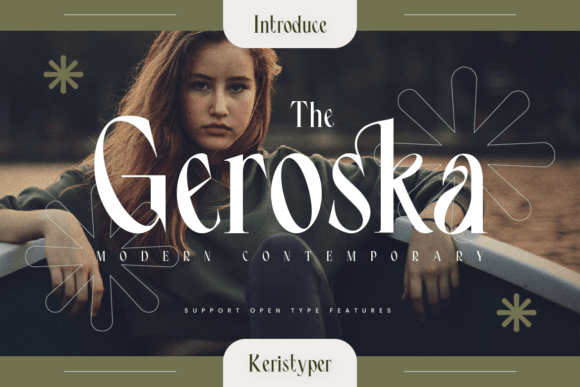
Unleash the Power of Expression with Geroska: The Serif Font That Speaks Volumes
In a world saturated with visual noise, your words have the power to cut through the clutter and leave a lasting impression. Geroska, a striking serif font, is your secret weapon to crafting designs that resonate with your audience.
Inspired by the timeless elegance of Mid-Century, Modern, and Aesthetics styles, Geroska is a font that commands attention without overpowering your message. Its refined curves and sharp serifs exude sophistication, inviting readers to engage with your content.
Whether you're crafting a captivating logo, creating eye-catching social media graphics, or designing movie or book titles, Geroska is your go-to choice for creating designs that leave a lasting impact.
Dive into the World of Geroska and Discover:
- A Serif Font Steeped in History: Geroska draws inspiration from classic serif fonts, reimagined for the modern age. Its timeless design ensures your creations stand the test of time.
- Versatility Like No Other: From short, impactful texts to lengthy, immersive reads, Geroska adapts seamlessly to your design needs. Its readability and clarity shine through, ensuring your message reaches your audience loud and clear.
- The Perfect Complement: Geroska plays beautifully with sans serif and script fonts, creating harmonious designs that captivate and inspire. Experiment with different combinations to find the perfect balance for your project.
- A Font That Speaks to Your Audience: Geroska's distinct character adds a touch of personality to your designs, subtly conveying your message and connecting with your audience on a deeper level.
- A Storyteller's Dream: Geroska is a font that captivates and compels. Its intricate details and thoughtful design invite readers to immerse themselves in your words, creating an unforgettable experience.